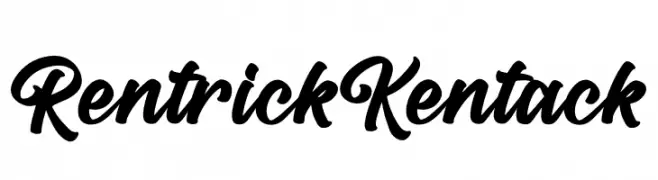
A fluid, cursive font with elegant, sweeping strokes and a handwritten feel.
A dynamic and elegant script font with fluid, cursive strokes and sophisticated swashes.
A dynamic and fluid script font with elegant, flowing lines and cursive letterforms.
A bold, handwritten font with a playful and energetic style.
A bold, dynamic script font with elegant, flowing cursive strokes.
A bold, italic script font with interconnected letters and smooth curves.
A dynamic, expressive handwritten font with fluid strokes.
A playful, hand-drawn font with rounded edges and consistent stroke width.
A playful, rounded font with smooth lines and a friendly appearance.
A whimsical, decorative font with playful curls and flourishes.